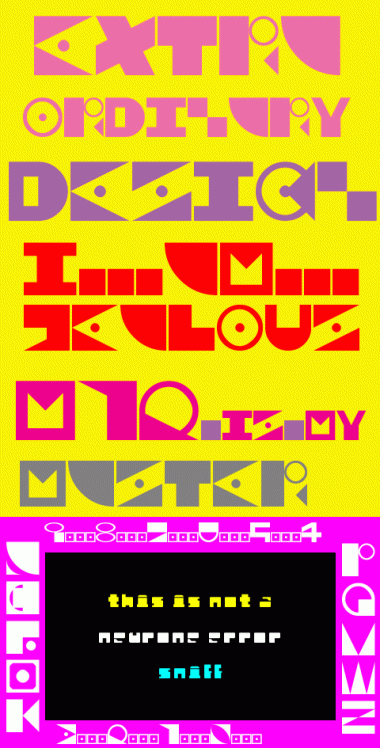
I hope you appreciated my little gift, and that with it the other fontstructors will see better the extraordinary potential of this design, you made with Symbolism one of my most favourite fonts of all times. Pure genius it is. Congratulation, respect, and admiration from Neurone Error. I really dreamt for a thing like this for a long time, you made my dream become a reality
I used Symbolism in my series of conceptual digital paintings ZEROING BLOOD, companion series of GENE TYPE, the text is written vertically but displayed as if it was a coded horizontal one. The vertical reading is also an allusion to the ADN representation. This series emerged from the frustration of not using some beautiful characters of the fonts used in my other series, this one using using all letters and numbers in one sentence. I am very, VERY severe in the choice of fonts I use in my artworks; from my large collection of beautiful fonts, very few will become "paintings", this is one of those.
Also, I love the new A and symbols, your so effective and intelligent use of stacking and composite bricks (At least it is what I think you used) gives me the desire to try these new features of Fontstruct I did not use so far.
E X C E L L E N T ! ! !
That was the old A, but there was a glitch, so I had to recreate it.
I'm still working on getting the 'a' through the glitch.
I don't understand what you mean with the A, in the version I downloaded, I can type the 2 versions, I mean "A" and "a" without any problem
When I Type 'a', it comes out ' '